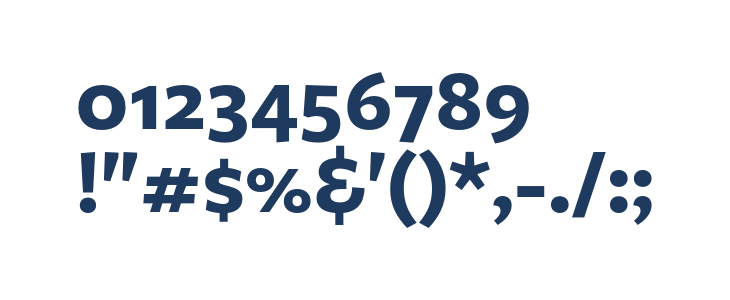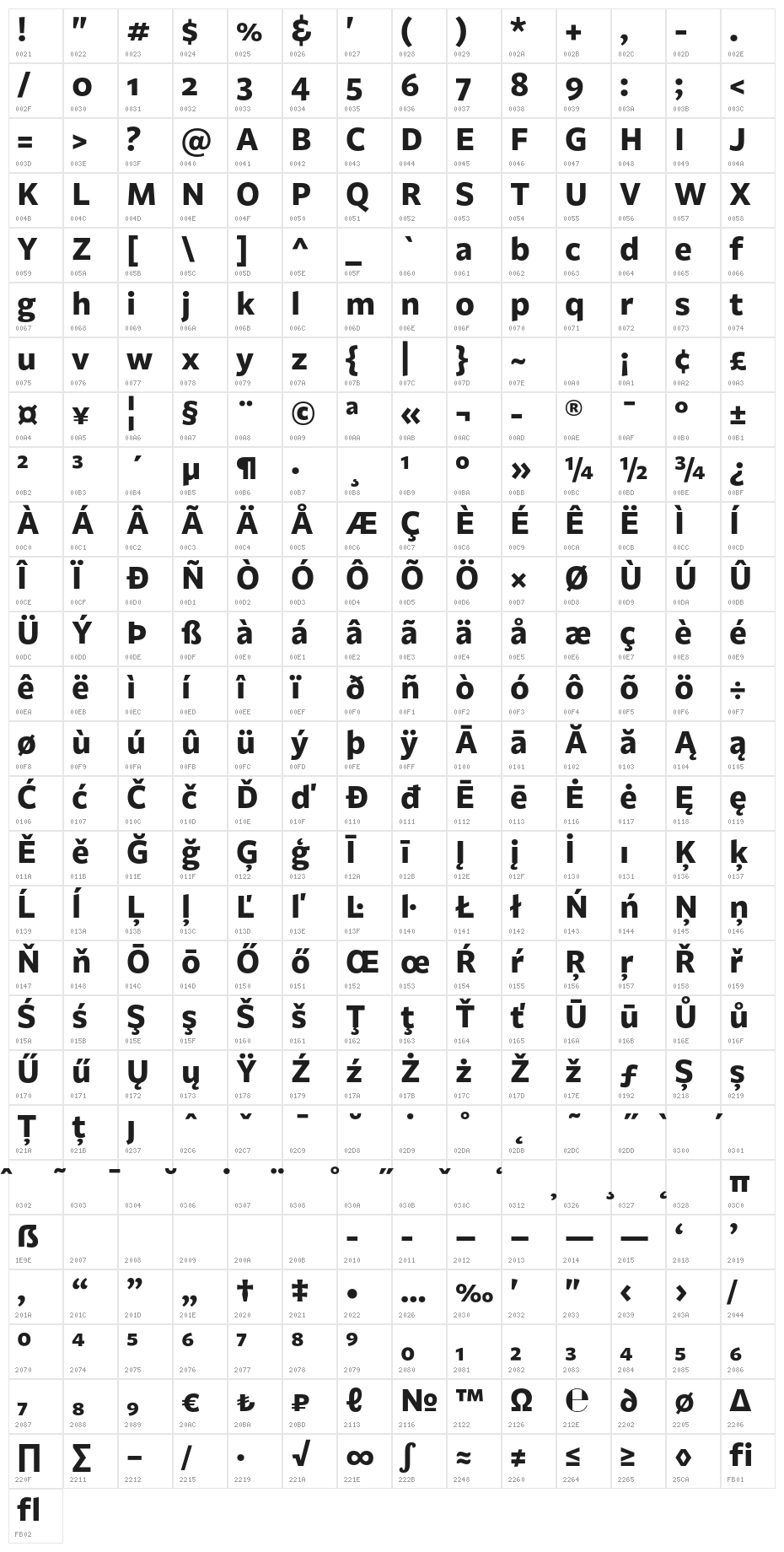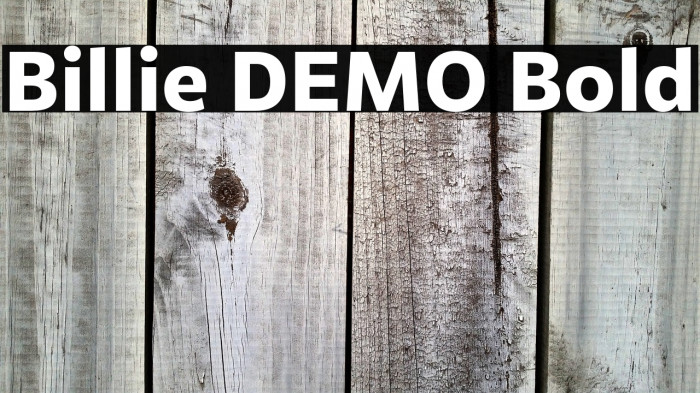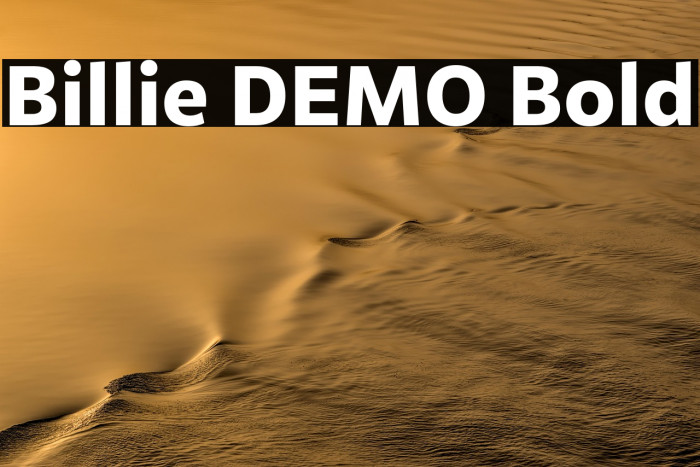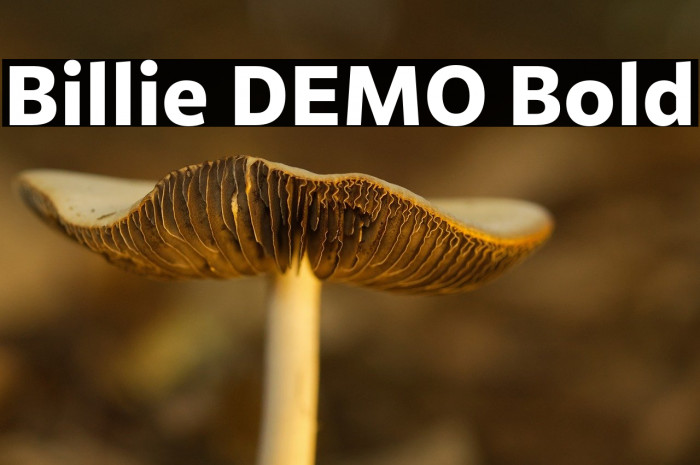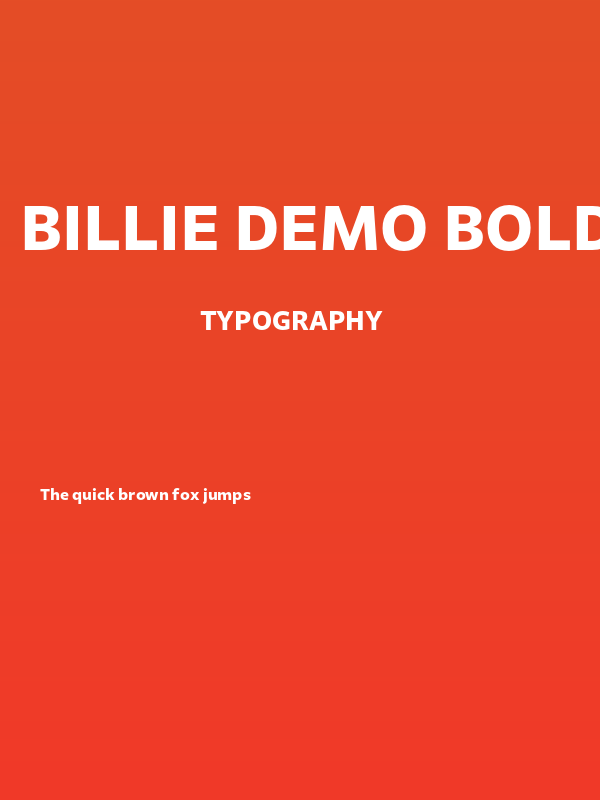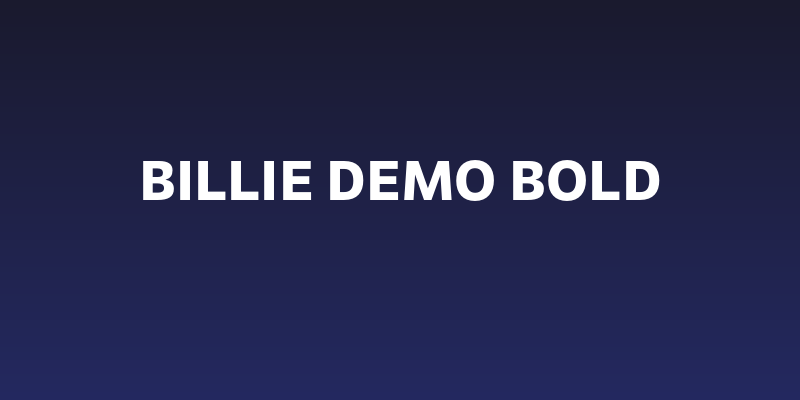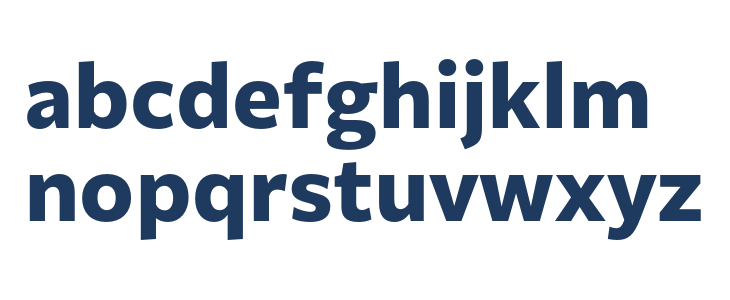
Billie DEMO Bold Font
Billie DEMO Bold Description
This font features a bold and assertive style, characterized by thick strokes and a strong presence. The uppercase and lowercase letters are well-balanced, with a consistent weight throughout. The numerals are clear and easy to read, making them suitable for various applications. The special characters are distinct and maintain the bold aesthetic, ensuring they stand out. Overall, the font exudes a modern and professional feel, ideal for making a statement in any design project.
| Proposed Projects | Ideal for headlines, branding, posters, and advertising where a strong visual impact is needed. |